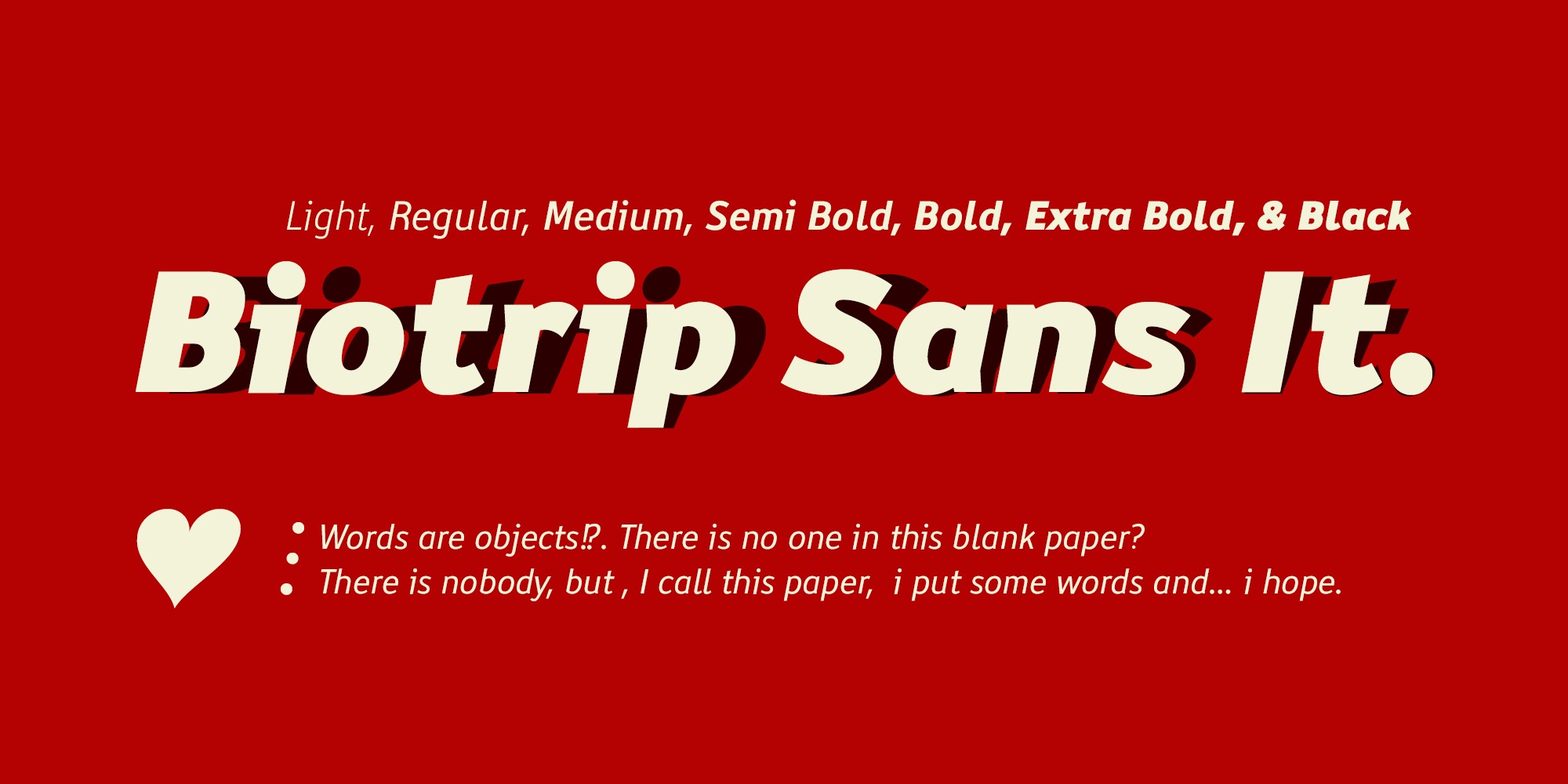
Biotrip Sans Font
Biotrip Sans Font is a clean and thoughtfully built typeface that works seamlessly for both professional branding and everyday creative uses.Biotrip Sans is a friendly typeface family that is, above all, a journey. A journey (Trip) from the purity of geometry to the warmth of the organic (Bio). I designed Biotrip Sans from that impossible point of equilibrium between reason and impulse, between the precise line of the vector and the unpredictable stroke of the hand. It’s a humanist sans-serif, a category that lives on that fascinating edge where the geometric softens, where rational proportions give way to the humanity of gesture. There’s no mechanical rigidity here, nor the coldness of grotesque fonts. Although its structure stems from geometry, its spirit is organic, alive. There is no mechanical rigidity here, nor the coldness of grotesque fonts. Every curve was designed to be experienced, not just read. The open, neutral forms and balanced rhythm make it a warm, versatile, and naturally legible font, even at the smallest sizes. Biotrip Sans comprises 14 methodically designed fonts, distributed across 2 styles (Regular and a genuine, flowing Italic) and 7 weights, ranging from the ethereal elegance of Light to the powerful impact of Black. I built Biotrip Sans to be a versatile and powerful tool, a complete system that will allow you to tackle any design challenge with precision and style. Biotrip Sans is a multipurpose font family. Designed to move seamlessly between editorial, corporate, and experimental settings. It shines in texts, headlines, visual identities, posters, packaging, or as a corporate typeface.